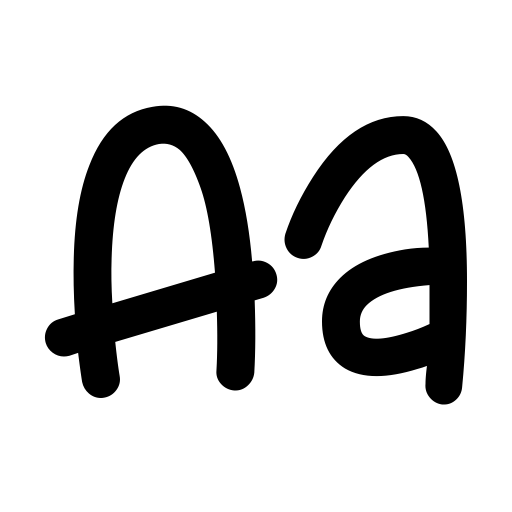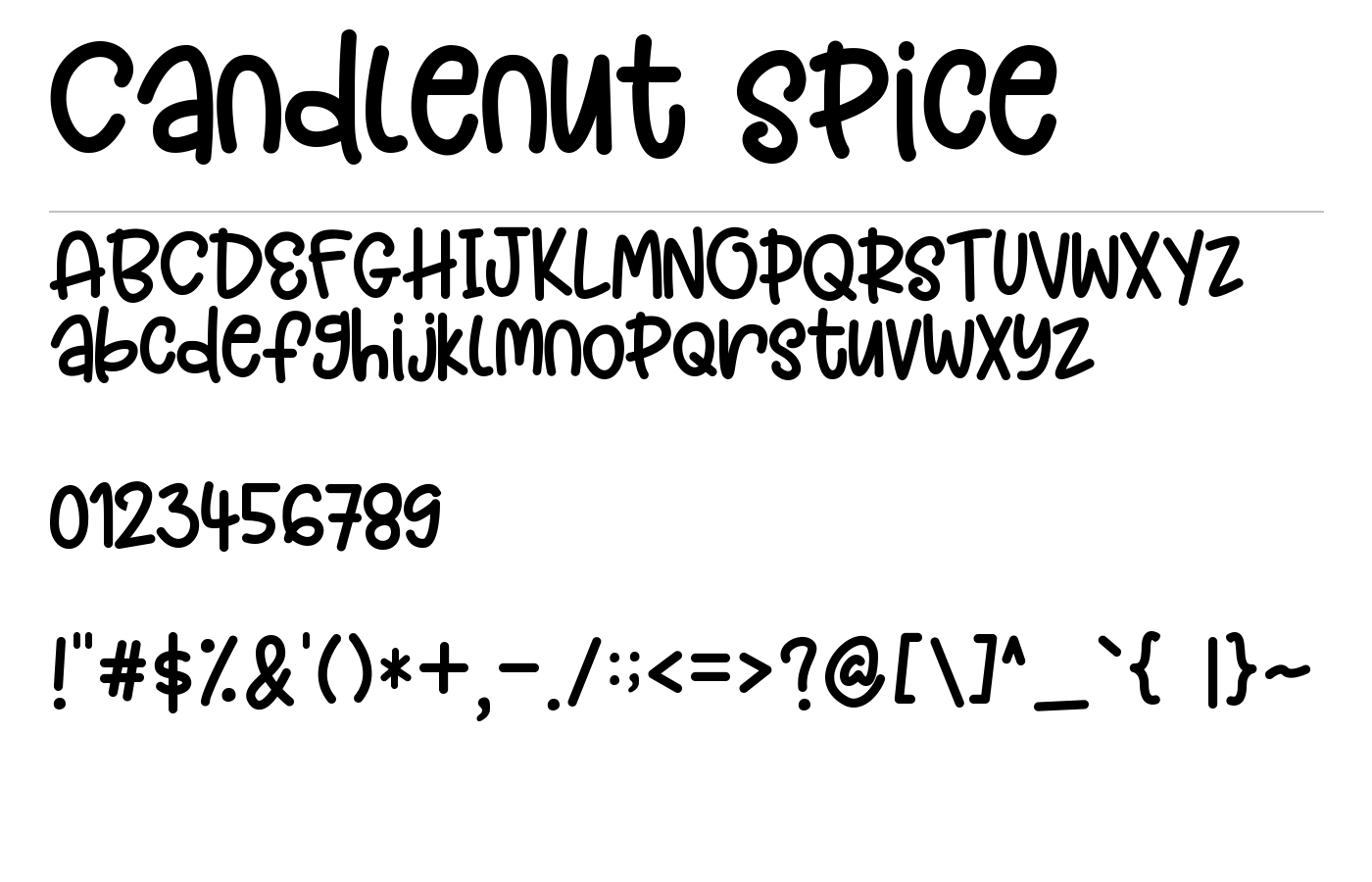
Candlenut Spice is a playful and casual handwritten sans serif font with a friendly, rounded style that adds a warm, approachable feel to any design. Its irregular strokes and lively character shapes make it perfect for creative projects, children’s books, packaging, and informal branding where a fun, personal touch is desired. This font’s charming personality shines in headlines and display uses, bringing a sense of joy and whimsy to the page.
Candlenut Spice Font
About Candlenut Spice Font